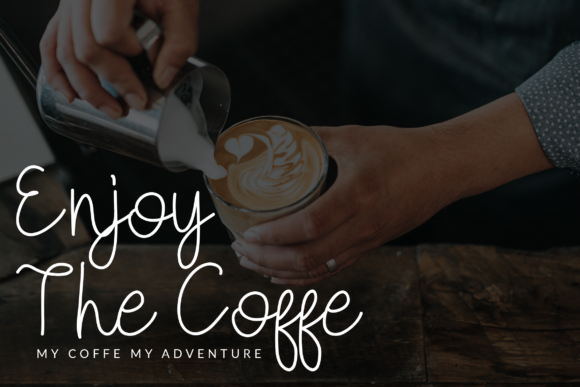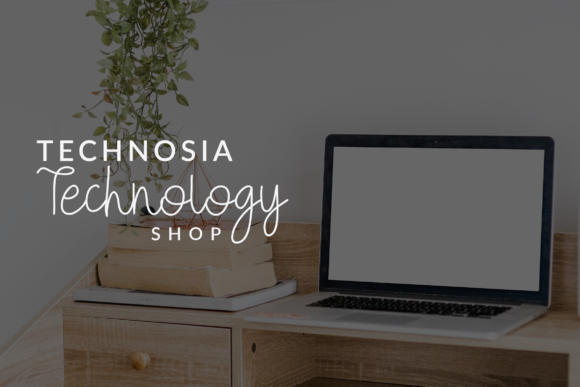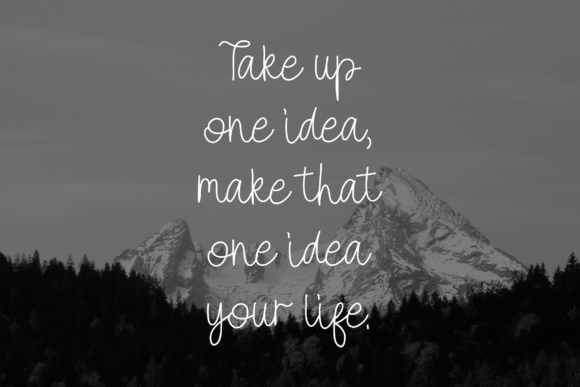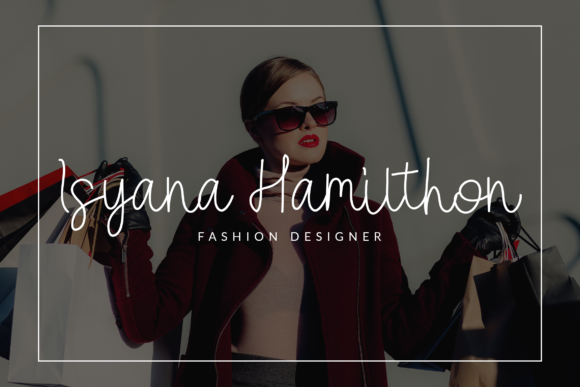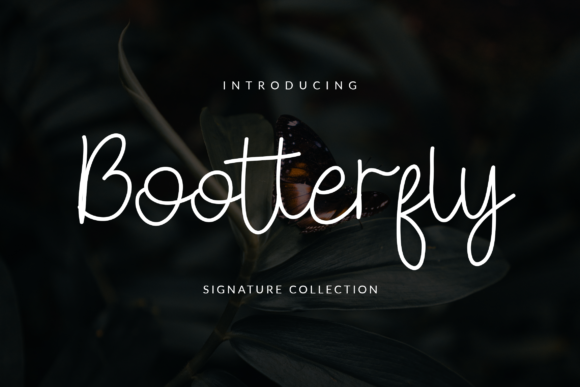
The Magic of Bootterfly Font: Elevate Your Designs with Elegance
I’ll never forget the time I was working on a wedding invitation project, and my client asked for a font that was both modern and elegant. I scoured the internet, tried countless fonts, but nothing seemed to fit the bill. That was until I stumbled upon Bootterfly Font. ✨ It was love at first sight! The beautiful script turned my design project into a standout, and my client was thrilled. In this article, I’ll share with you why Bootterfly Font is a game-changer for designers, crafters, and creative hobbyists.
A Personal Review: What I Love About Bootterfly Font
Here’s what makes Bootterfly Font special:
• ✨ Modern approach to lettering: Bootterfly Font brings a fresh and contemporary feel to your designs.
• ✅ Elegant and sophisticated: Perfect for projects that require a touch of luxury and refinement.
• 💫 Versatile: Works beautifully for a wide range of design projects, from wedding invitations to branding and packaging.
While Bootterfly Font is amazing, there are a few things to keep in mind:
• ⚠️ Legibility at small sizes: Like many script fonts, Bootterfly Font can be a bit tricky to read at small sizes. Make sure to test it in your design before finalizing.
• 🤔 Pairing with other fonts: Bootterfly Font is stunning on its own, but pairing it with other fonts can be a bit challenging. Experiment with different combinations to find the perfect match.
The Designer Inspiration Behind Bootterfly Font
The story behind Bootterfly Font is one of passion and creativity. According to its designer, Bootterfly Font was inspired by the beauty of nature and the world of fashion. The designer aimed to create a font that would bring a touch of elegance and sophistication to any design project.
What makes Bootterfly Font unique? Bootterfly Font’s modern approach to lettering and elegant design make it stand out from other scripts.
Is Bootterfly Font suitable for body text? While Bootterfly Font is stunning, it’s best used for headings and titles. For body text, consider a more legible font.